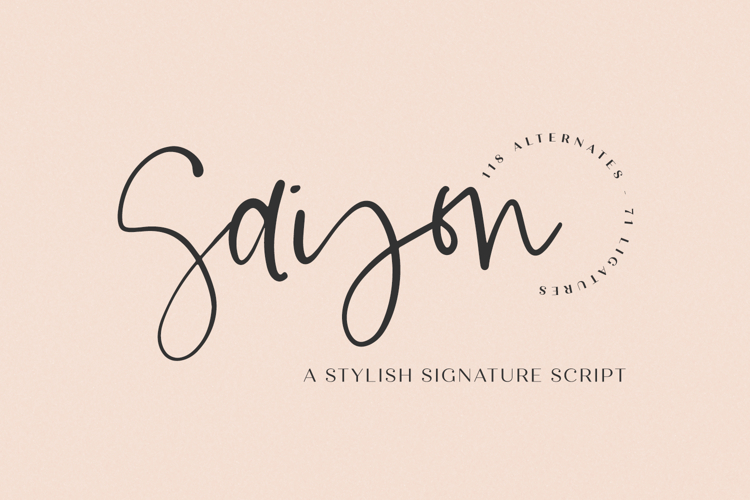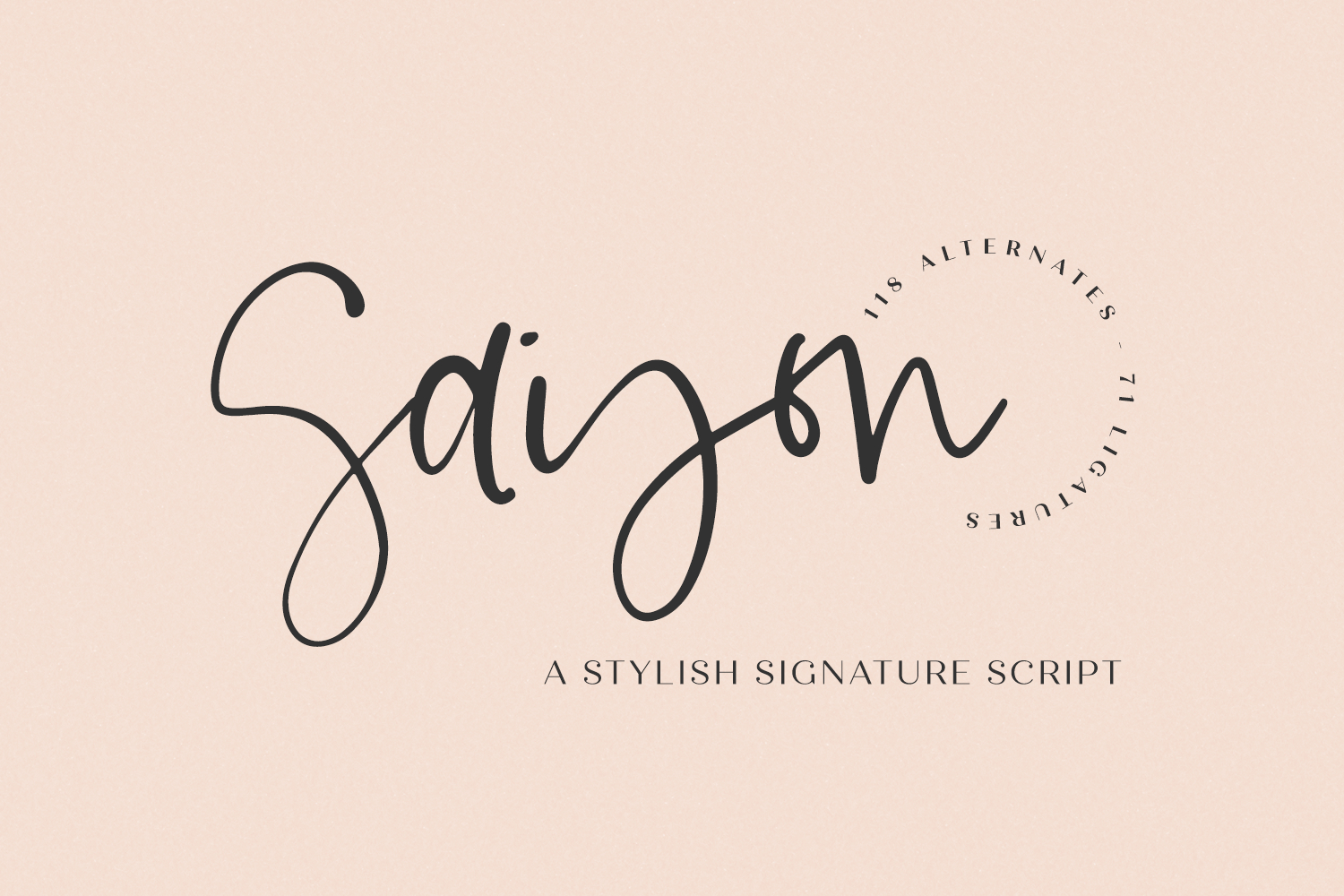
Saison Script
Introducing Saison Script, a handwritten signature style font. Saison was inspired by the lettering I used in my own logo — I decided to make this available to my customers, since so many of you have asked the question, “What font did you use?” Now, I can tell you that it’s this one! This stylish font features a messy, casual look and ligatures to enhance the flow of the handwriting look & feel of your project!
Saison Script is best for:
- website design + website accents - think travel blogs, fashion blogs, & more
Saison includes:
- 118 alternate characters
- 71 ligatures - ar as ll on or pr rr sh th ab ad ah ak al am an ar as bb bl cc cr dd dr ea ed ee el em en er es ex ff fl fo fr gg gr ii il ir is ll mm ms nn nt of ol om on oo op or os ou pp pr rr sh sl ss st th tr tt up ur us wr